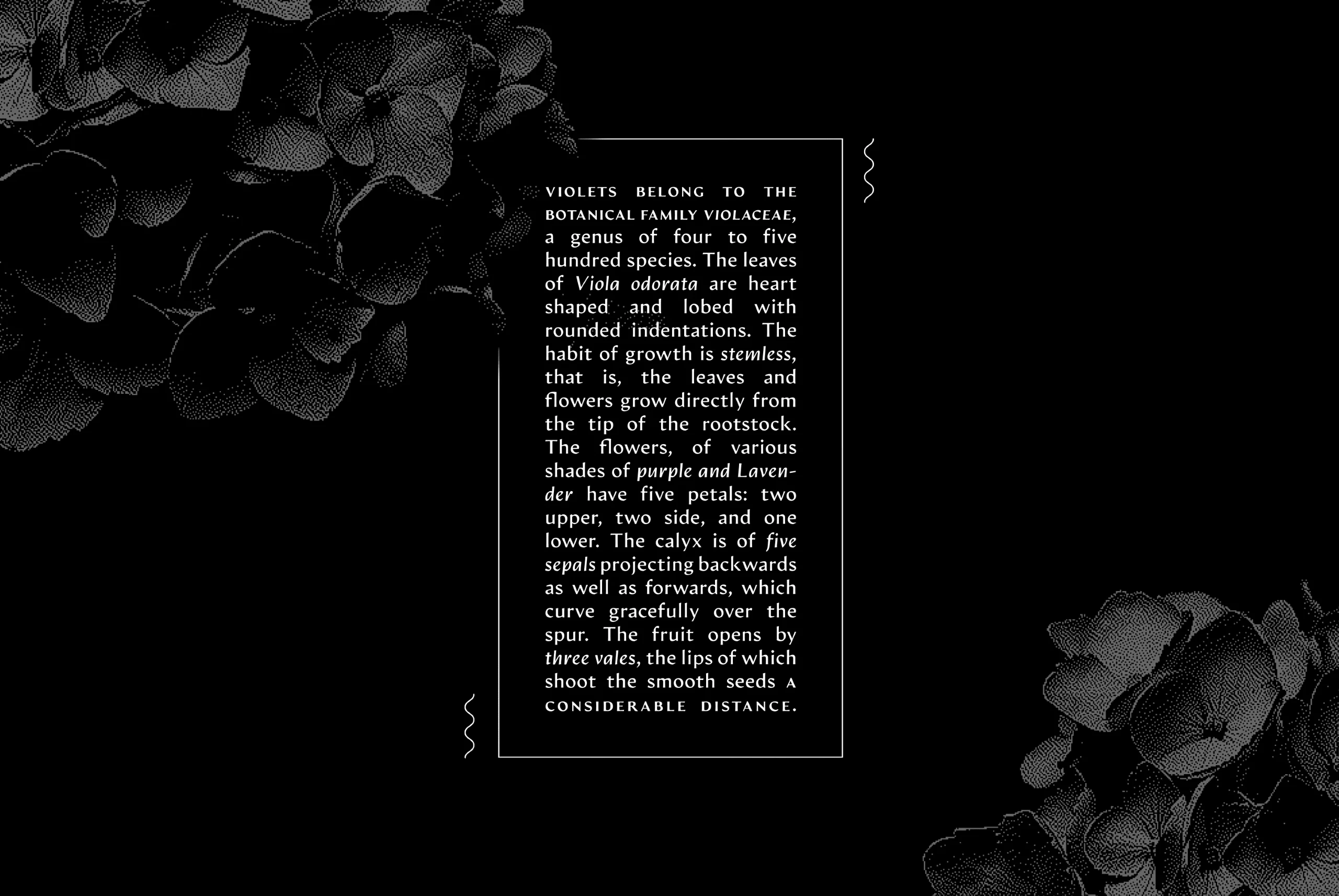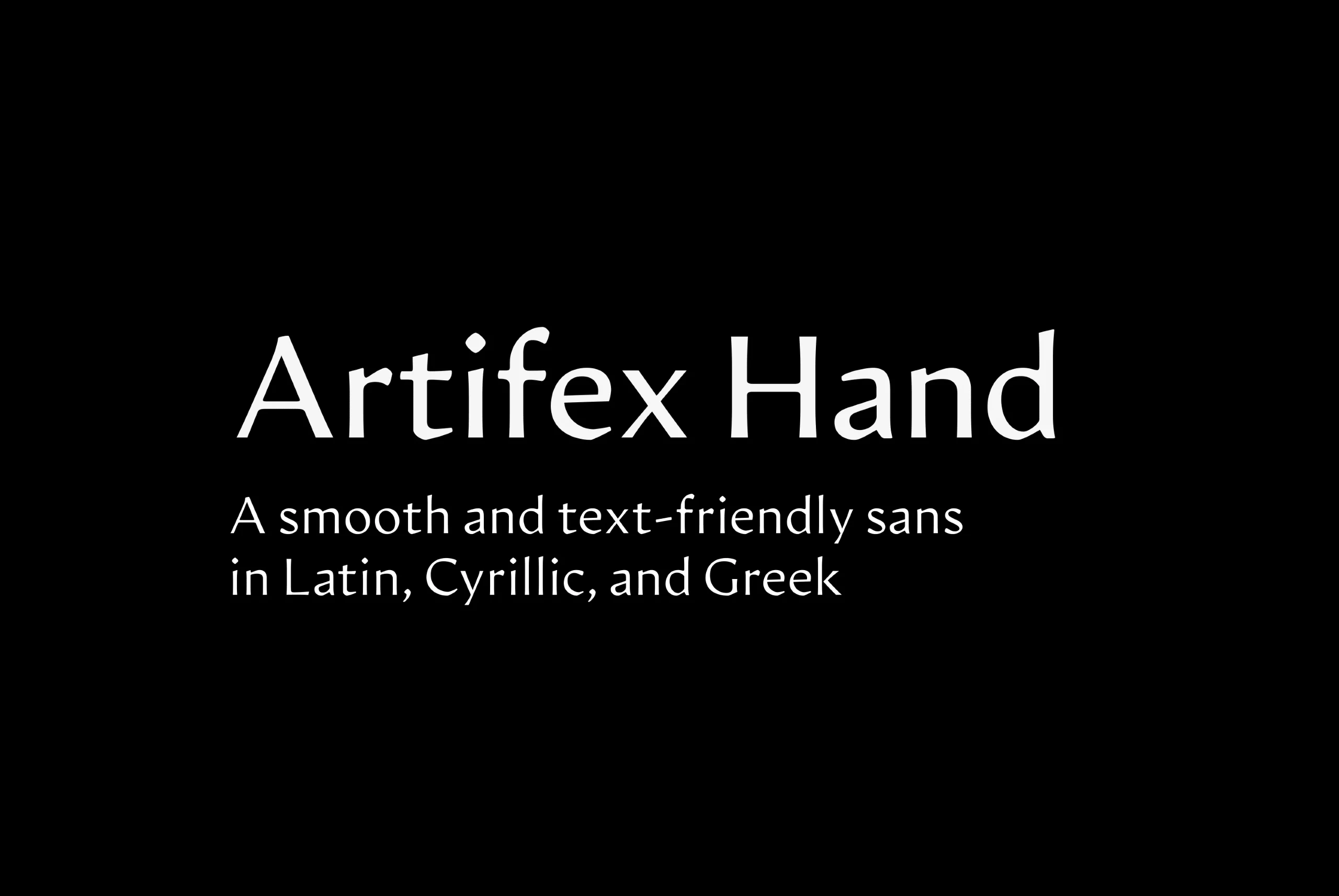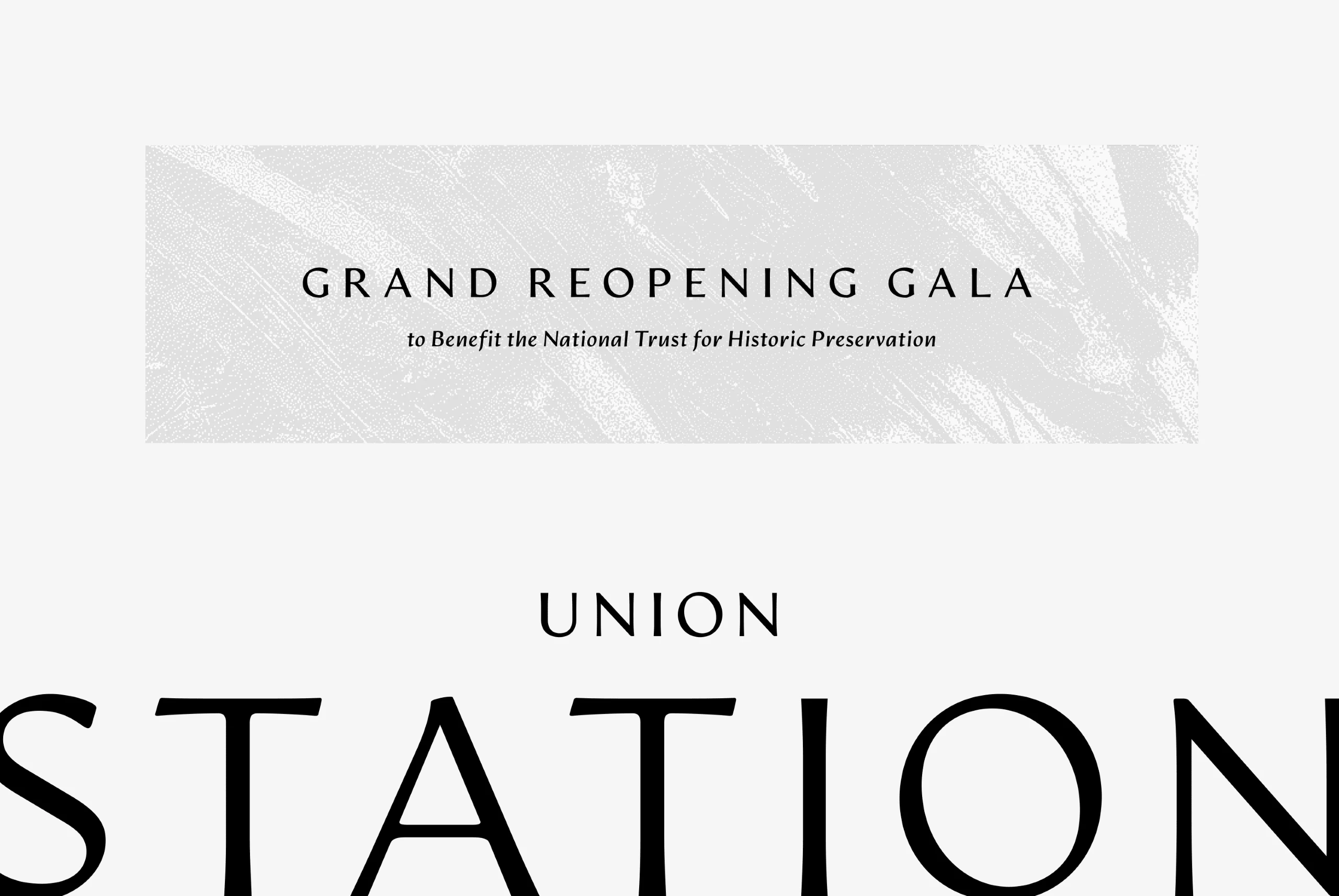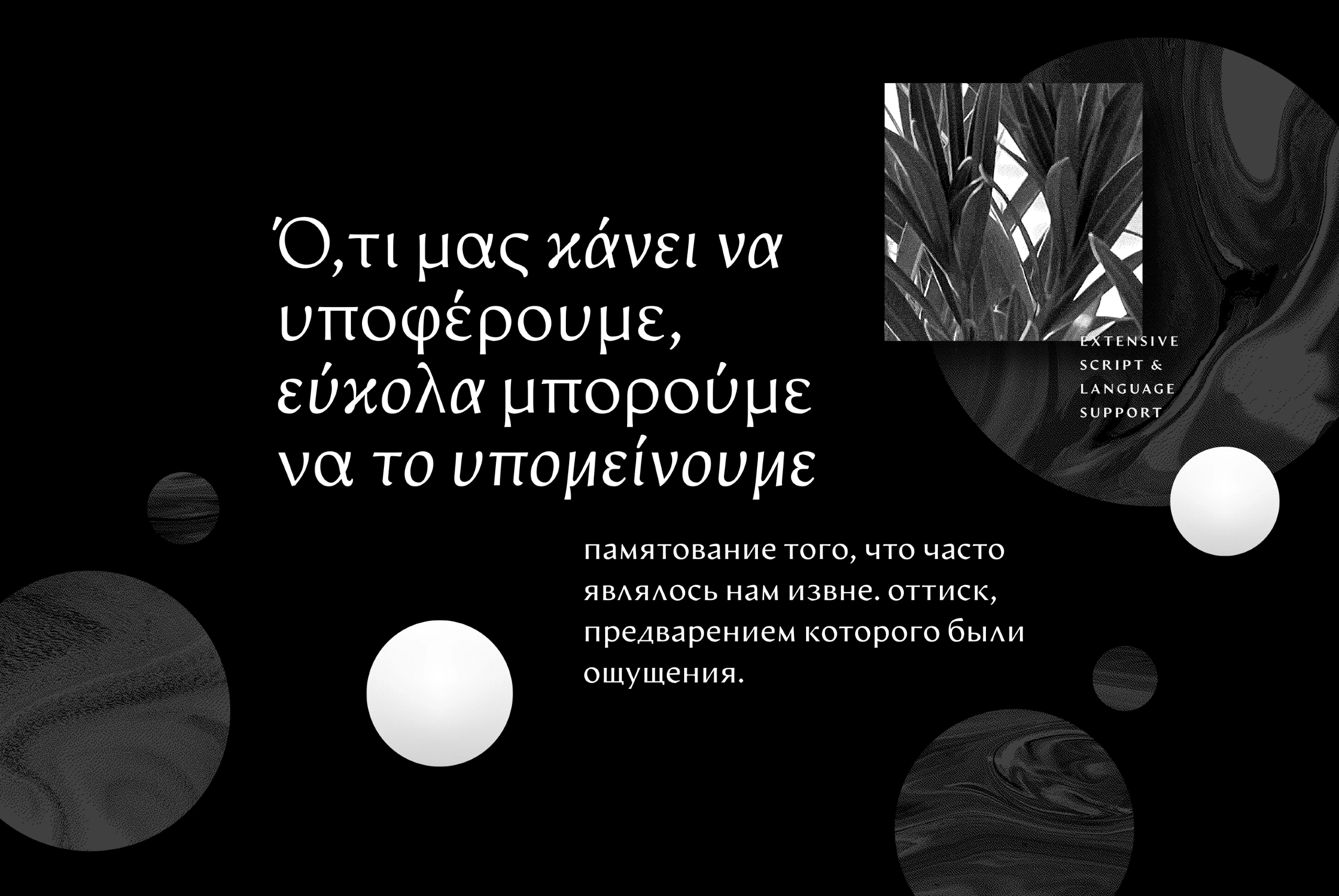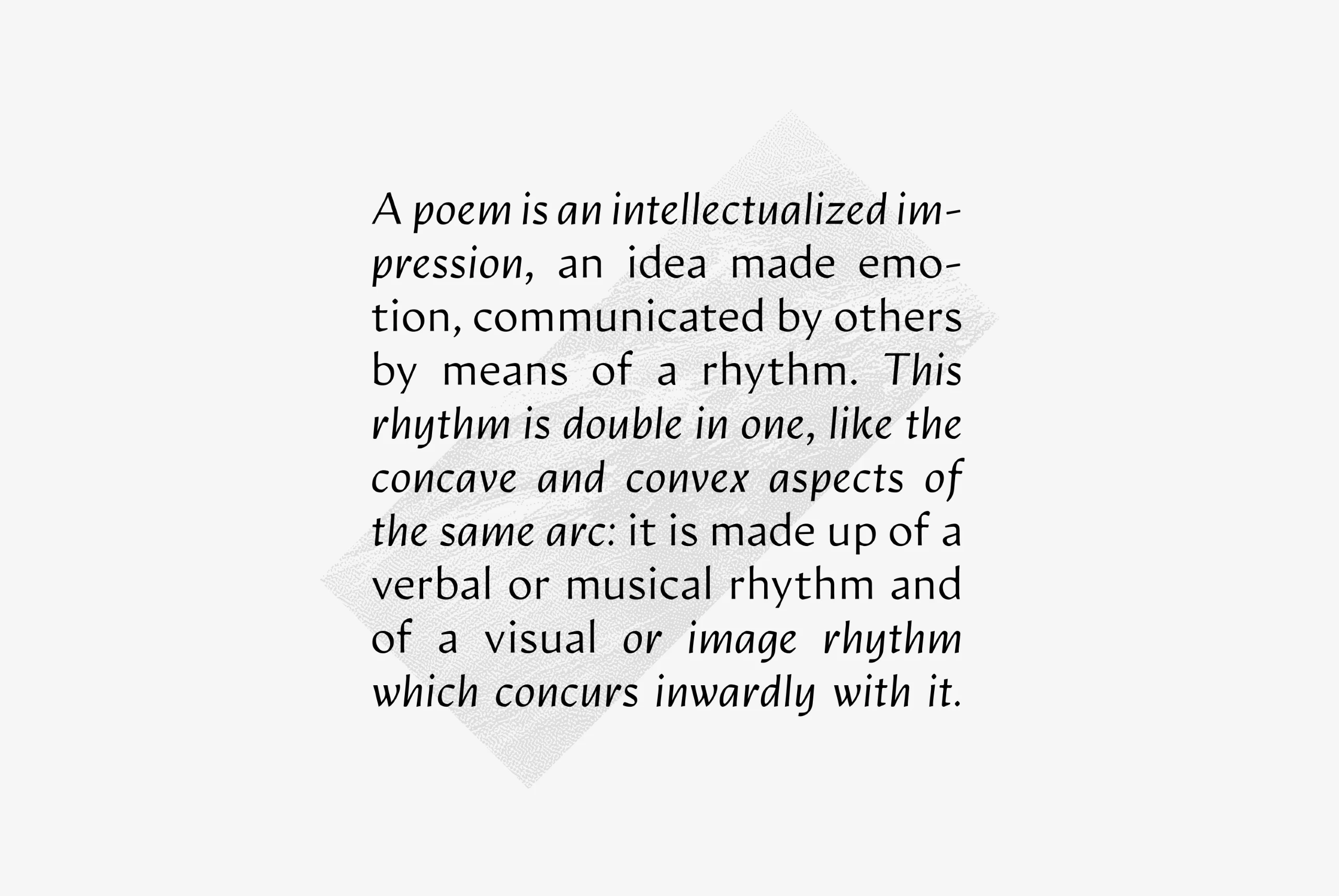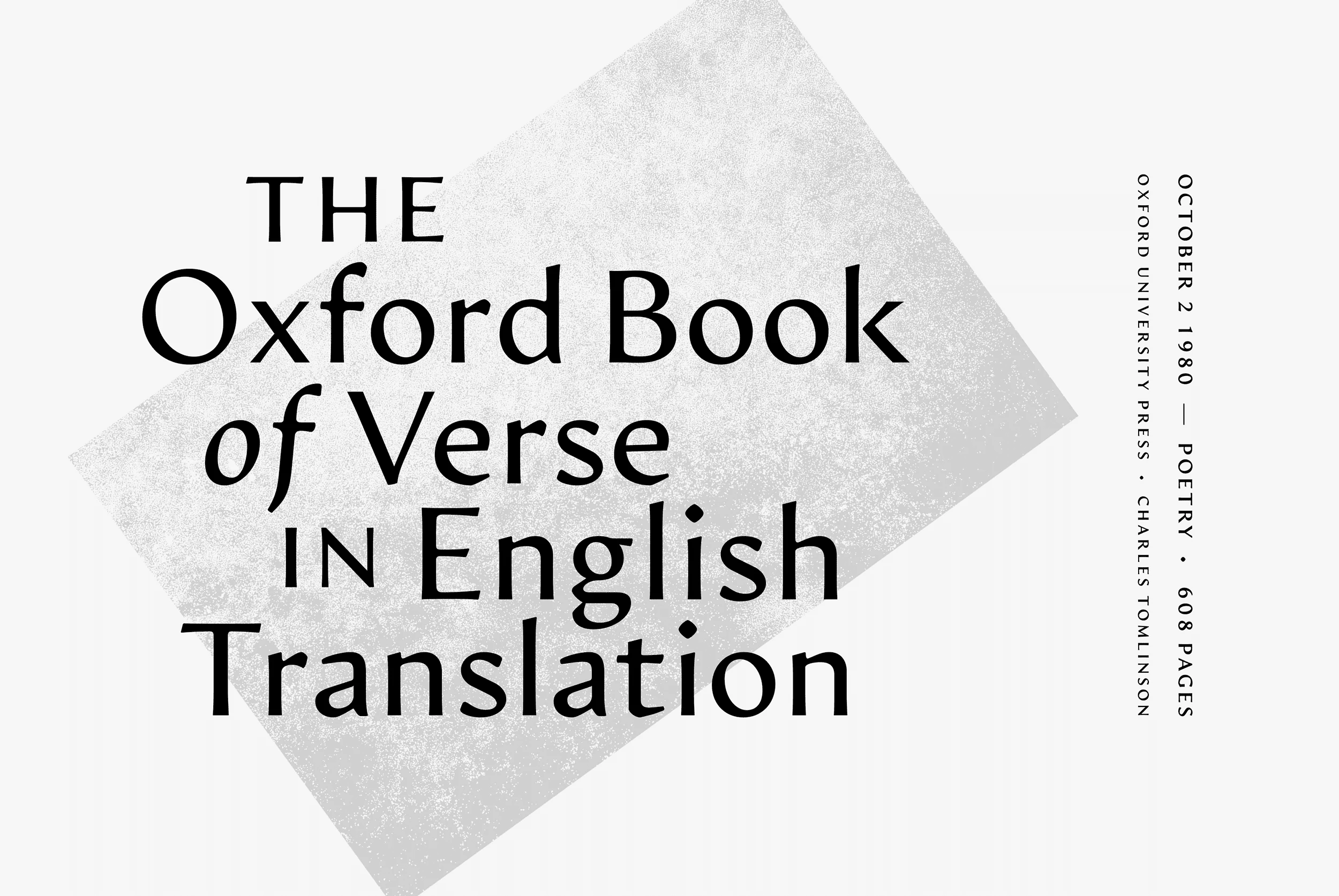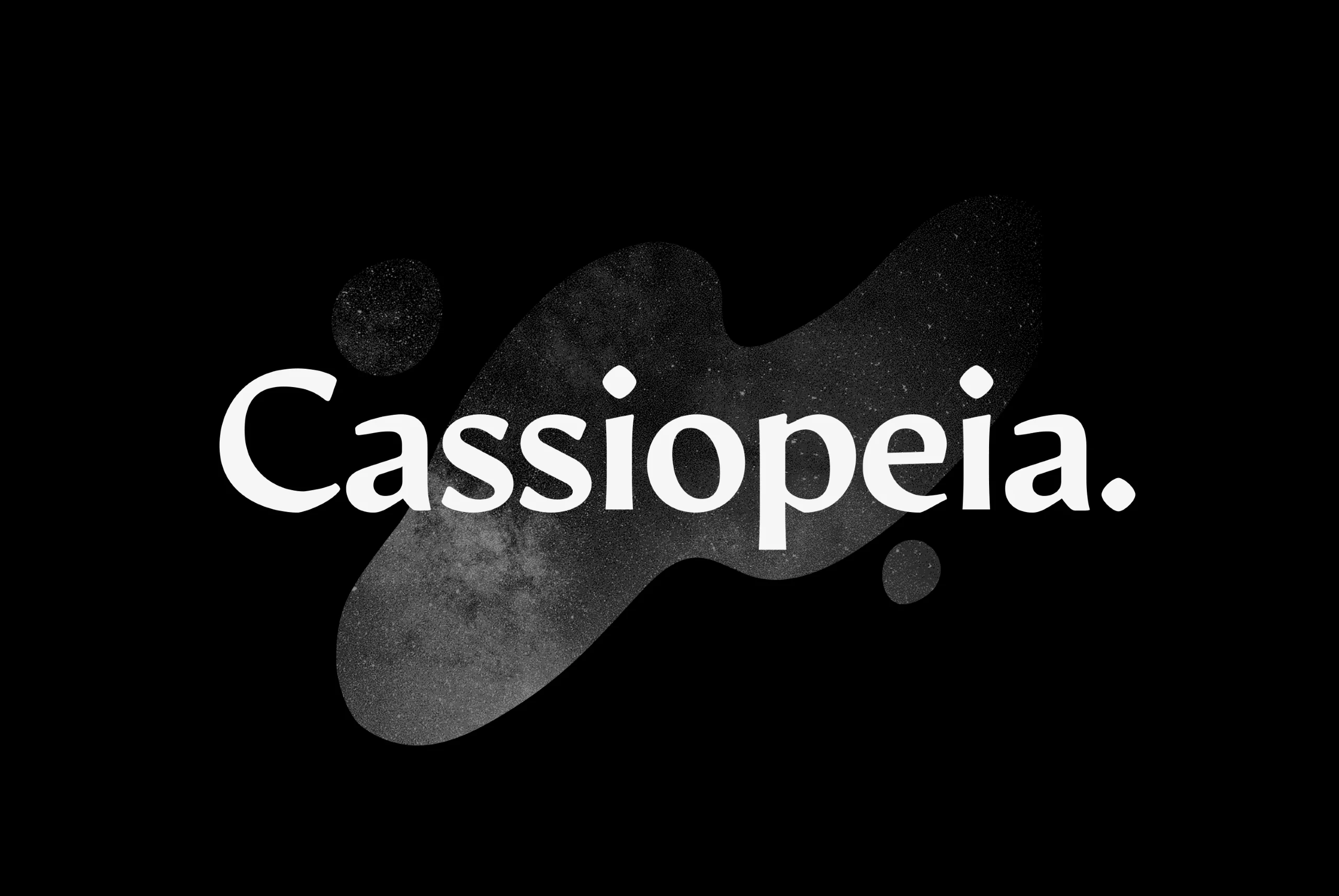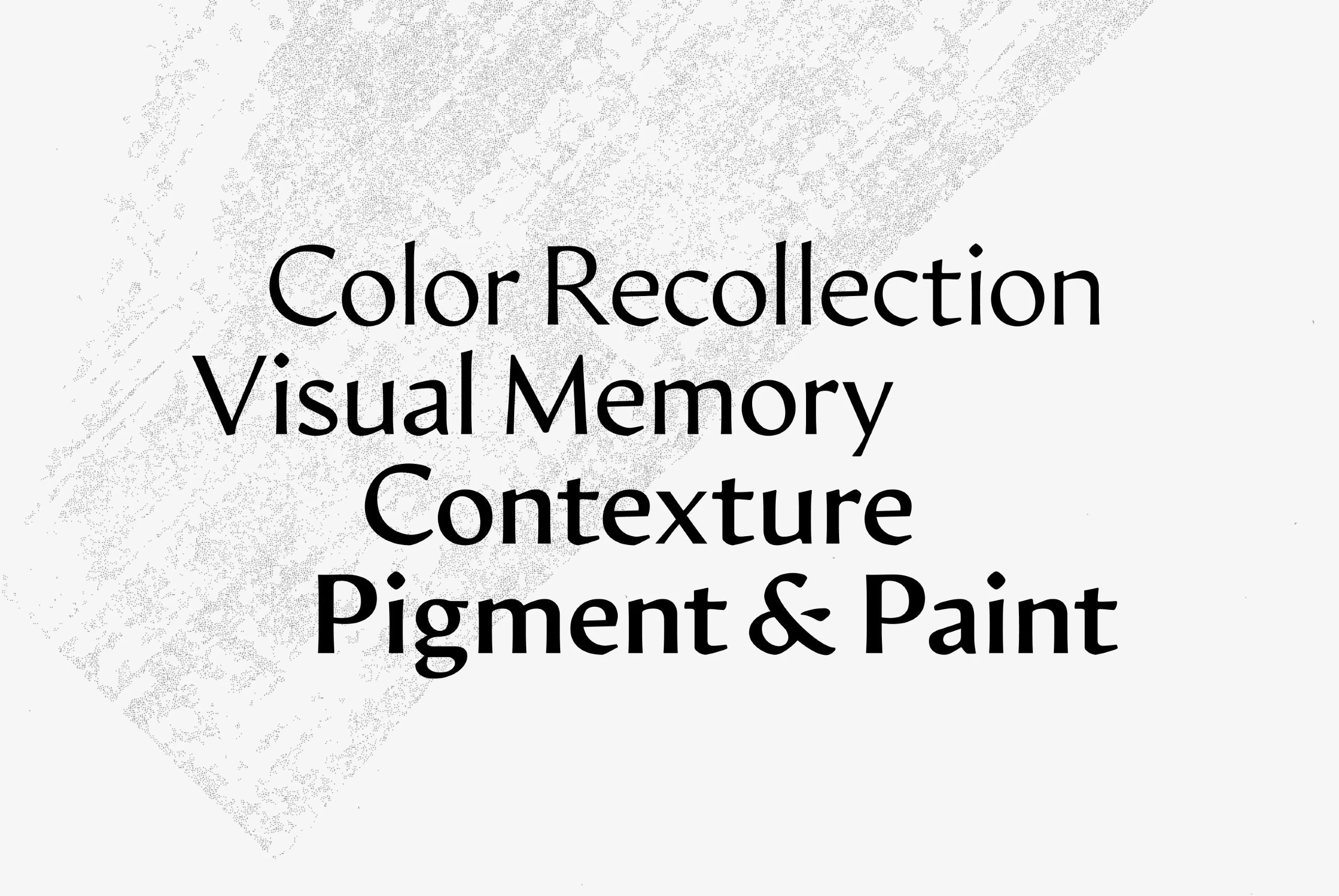
Artifex Hand
Artifex Hand CF is a humanist sans-serif variation on the original Artifex typeface; its serifs replaced with a subtle flare, lending a calligraphic feel and warm tone. Like its sibling, Artifex Hand is designed for flowing, easy-to-read text while doubling as a display font, thanks to its subtle details and moderate contrast. Extensive Latin, Cyrillic, and Greek support lends wide language coverage. Eight weights and true italics • Latin, Cyrillic, and Greek scripts • Wide language support, including Russian, Greek, Vietnamese and many more • International Phonetic Alphabet glyphs included • Latin-script transliteration for Sanskrit, Arabic ALA-LC/DMG/ISO 233, and Pinyin • OpenType features (fractions, alternates, ligatures) • Long term support, free features, and bug fixes. Designed by Connary Fagen, Artifex Hand CF is a sans serif font family. This typeface has sixteen styles and was published by Connary Fagen Type Design.
eight Weights in Latin & Greek • Cyrillic • Vietnamese • Pinyin • IPA • Romanization Sets Script
Language support includes Belarusian, Bulgarian, Catalan, Chinese Pinyin, Croatian, Czech, Danish, Dutch, English, Filipino, Finnish, French, Fula, German, Greek, Hungarian, Indonesian, IPA, Italian, Kazakh, Latvian, Macedonian, Malay, Maltese, Norwegian, Polish, Portuguese, Romanian, Russian, Serbian, Slovak, Slovenian, Spanish, Swedish, Turkish, Ukrainian, Uzbek, Vietnamese
Ligatures
Discretionary Ligatures
Contextual Alternates
Stylistic Set 1
Fractions
Lining Figures
Oldstyle Figures
Tabular Figures
Proportional Figures
Ordinals
Scientific Inferiors
Superscript
Subscript
Numerators
Denominators
Small Capitals
Small Capitals from Capitals
Case-Sensitive Forms